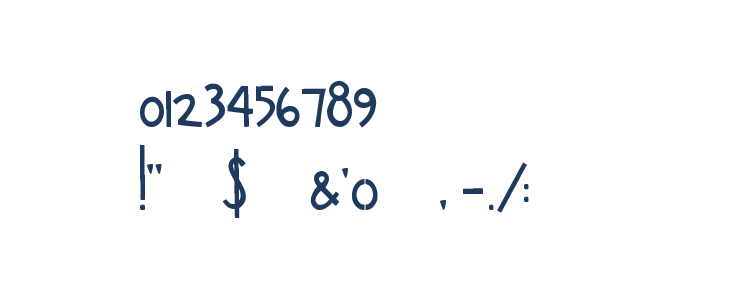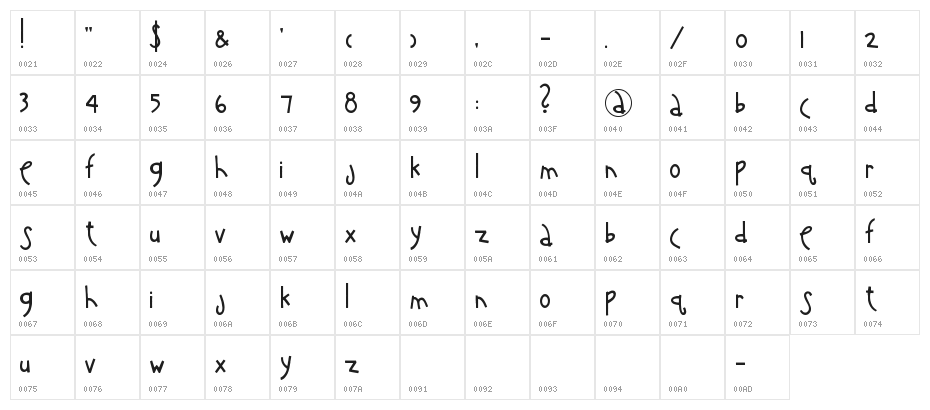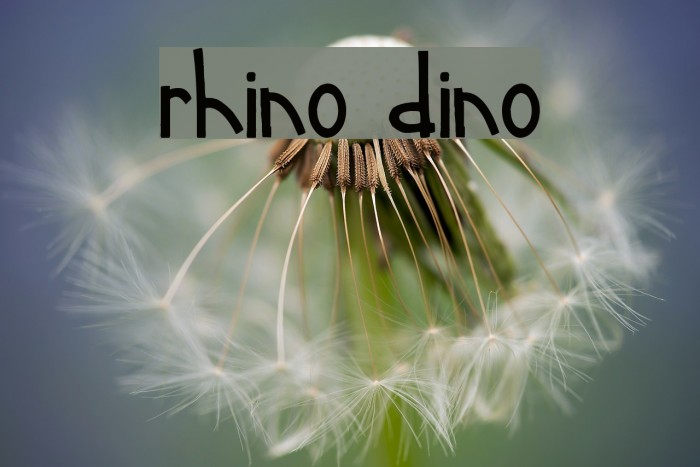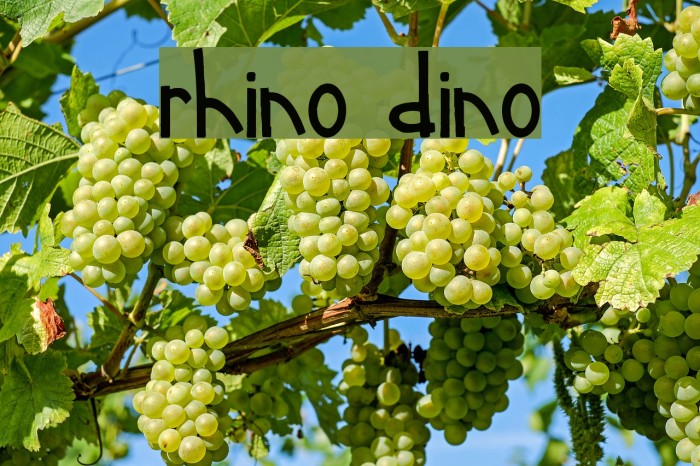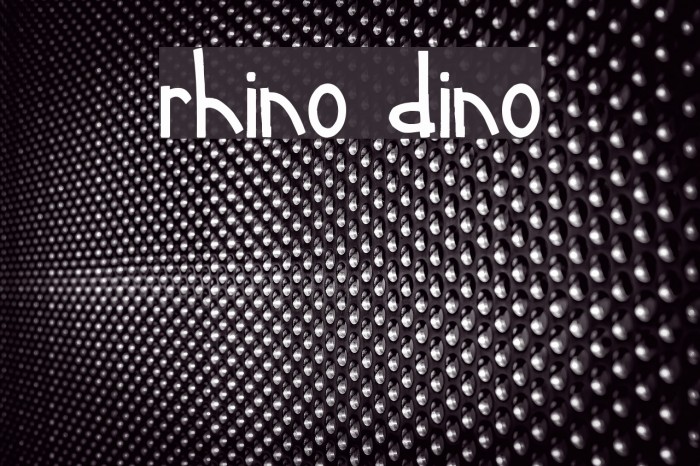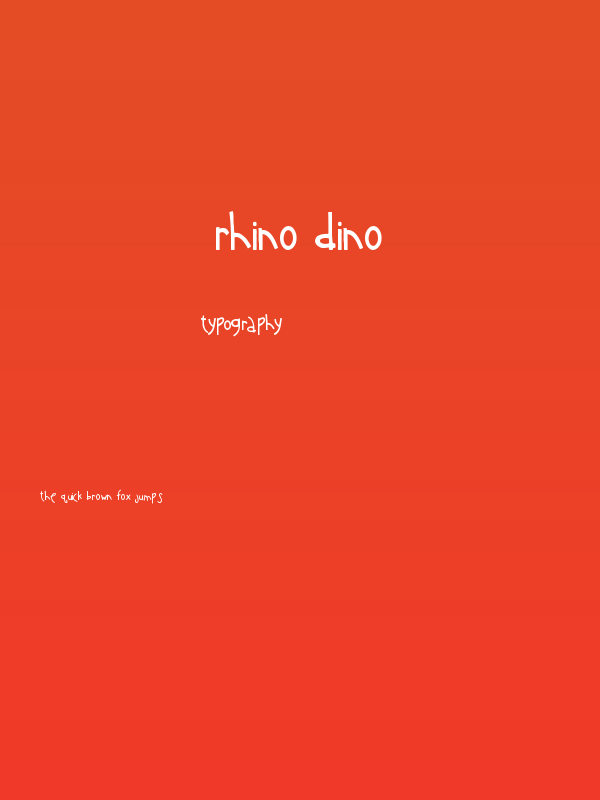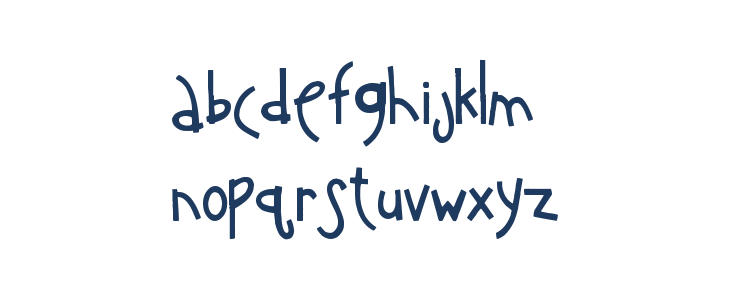
rhino dino Font
rhino dino Description
This playful and whimsical font features a hand-drawn style with irregular, slightly uneven strokes that give it a lively and dynamic appearance. The characters are bold and rounded, with a slight tilt that adds to their informal charm. The uppercase and lowercase letters maintain a consistent style, with quirky details such as exaggerated curves and unique terminal endings. The numbers and special characters follow the same playful design, making them cohesive with the overall look. This font exudes a sense of fun and creativity, perfect for projects that aim to capture attention with a lighthearted touch.
| Proposed Projects | Ideal for children's books, playful branding, greeting cards, and creative posters. |